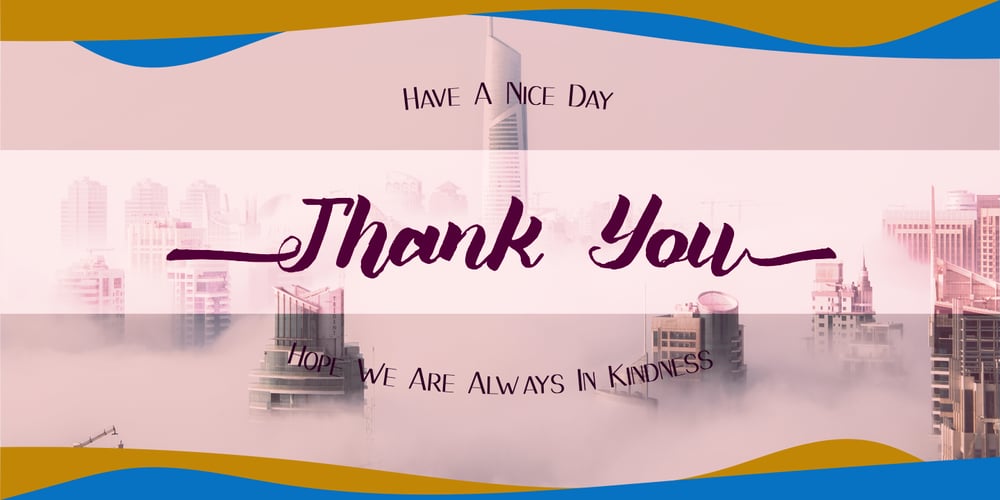
Kalgellise Font Family was designed by Syukur Setiyadi and published by SSI.Scraps. Kalgellise contains 1 styles and family package options. Kalgellise is an elegant brush font with a bold twist. It will inspire any design projects with its authentic charm.